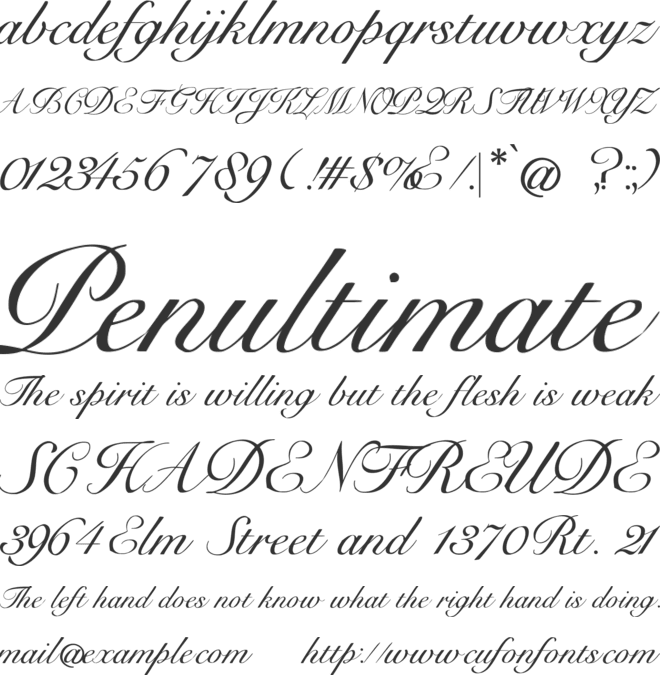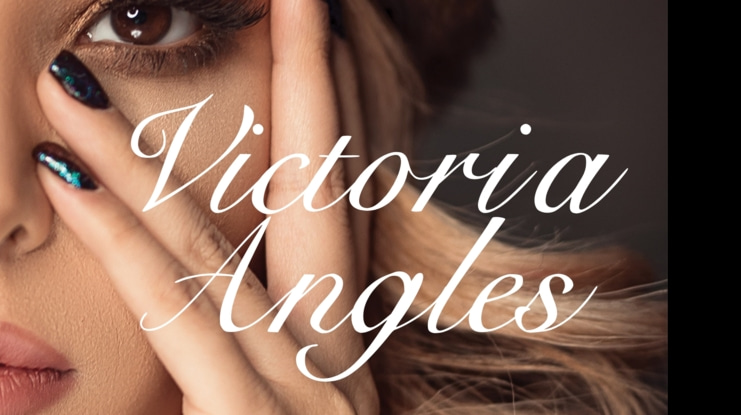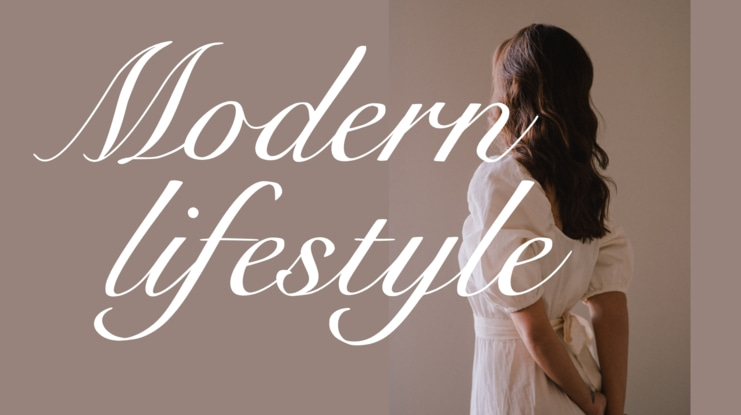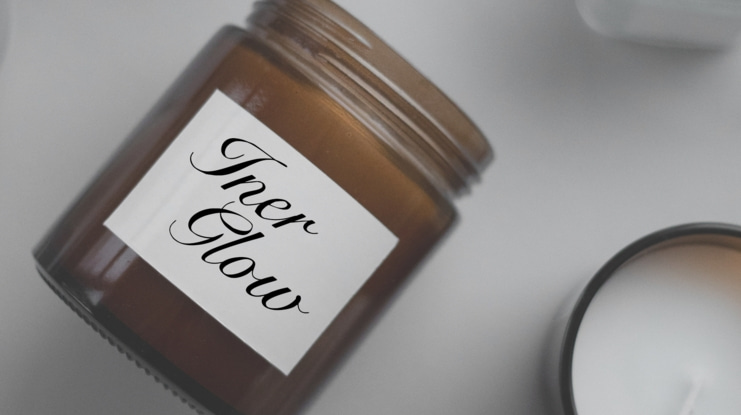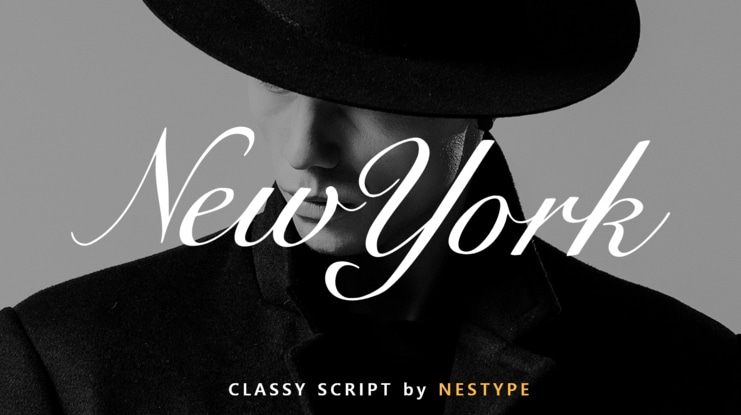
New York Font
New York Font is a classic look serif with Upright and Italic options. flexible enough for web and print use and can be used in a wide variety of projects such as stationery, packaging, apparel, wedding stationery, prints, quotes, social media graphics, planners, greeting cards, logos, branding and much more.